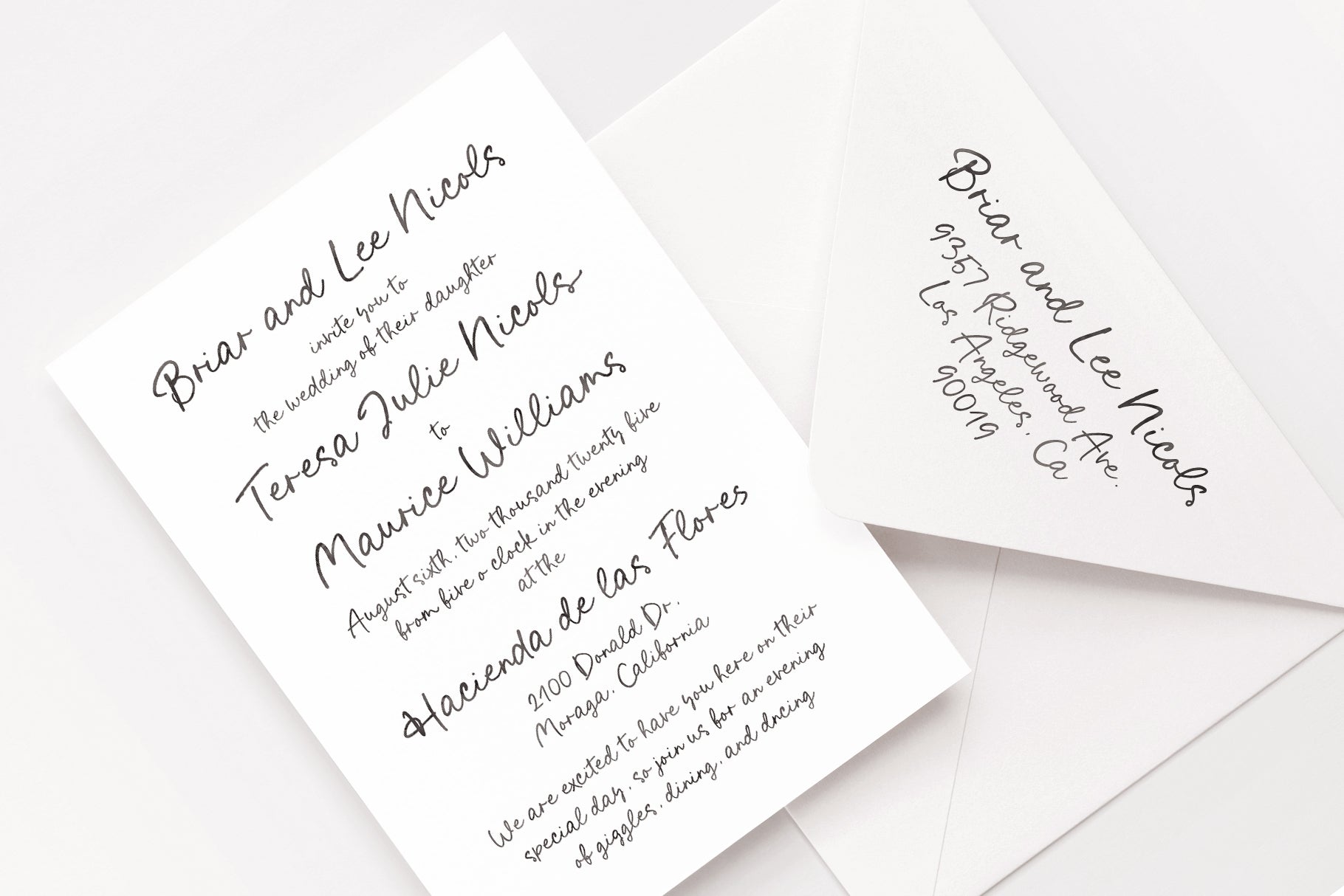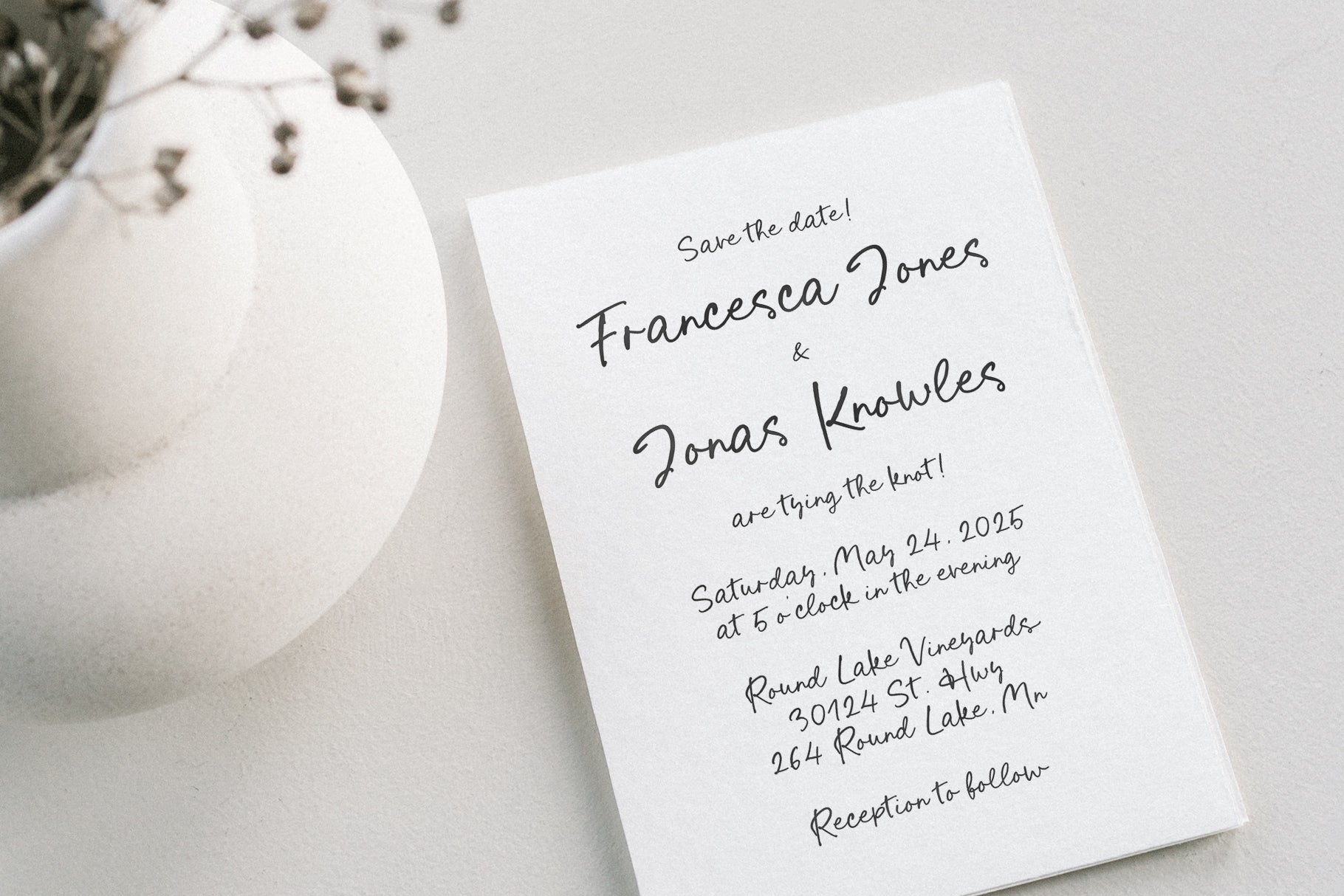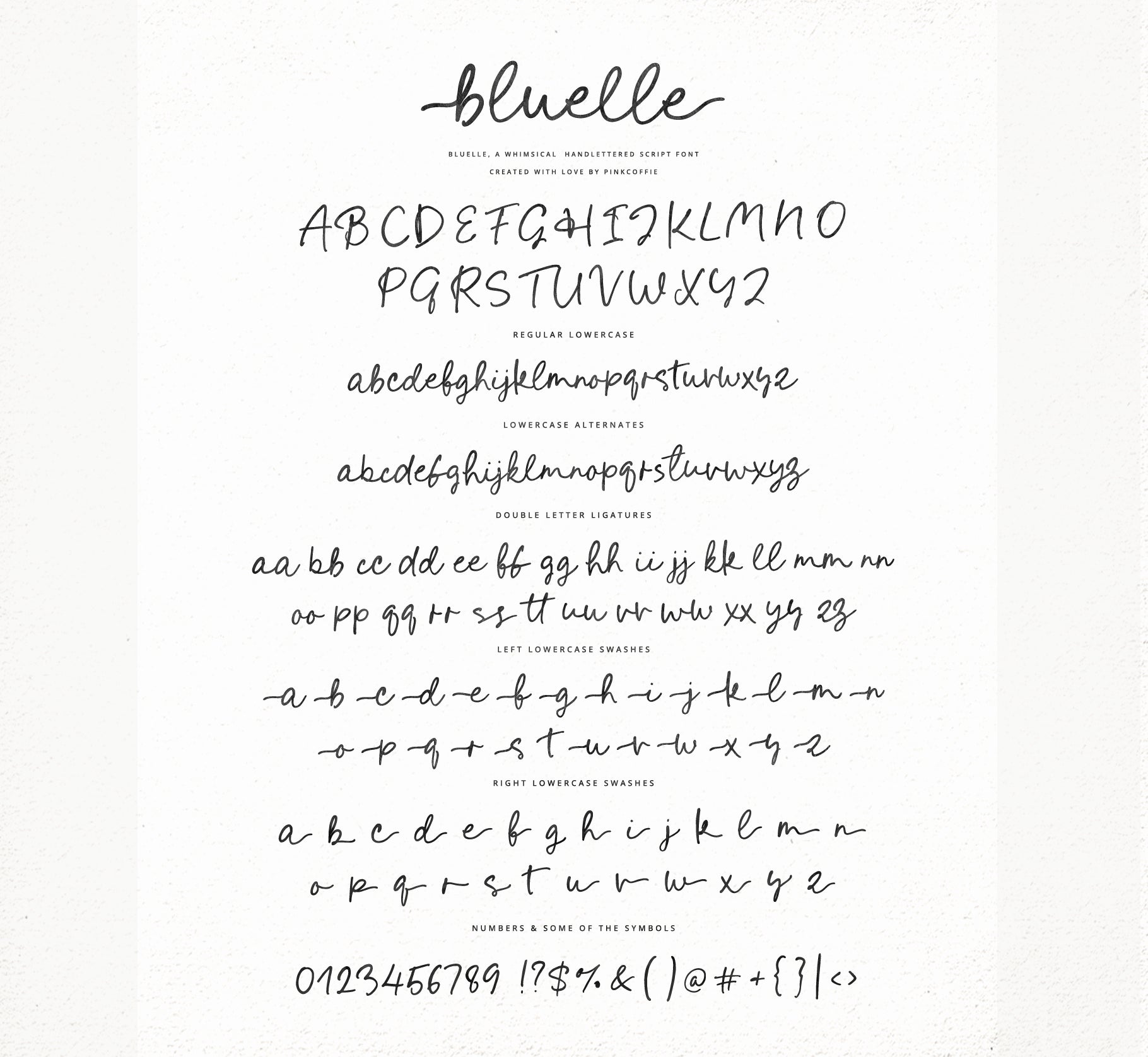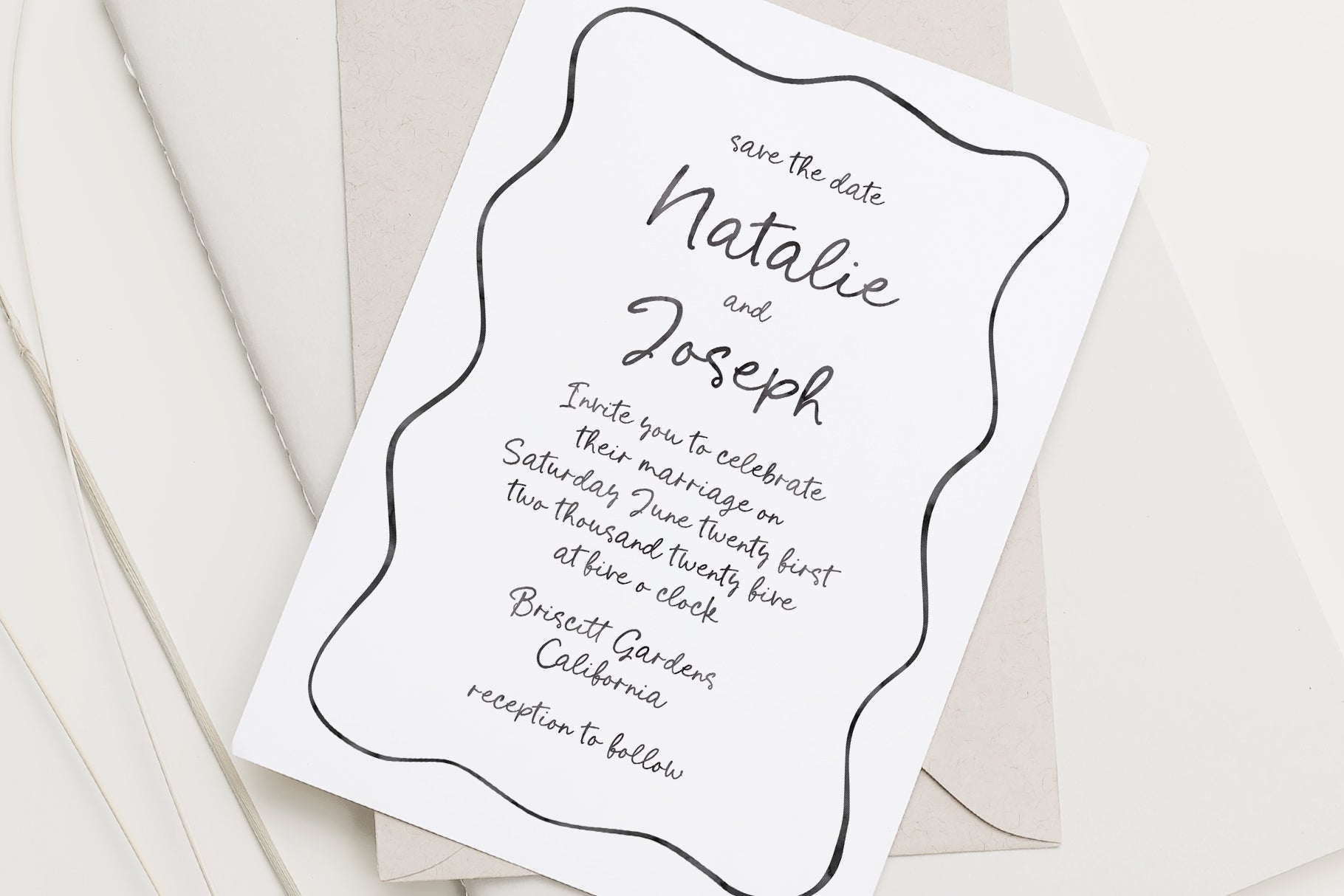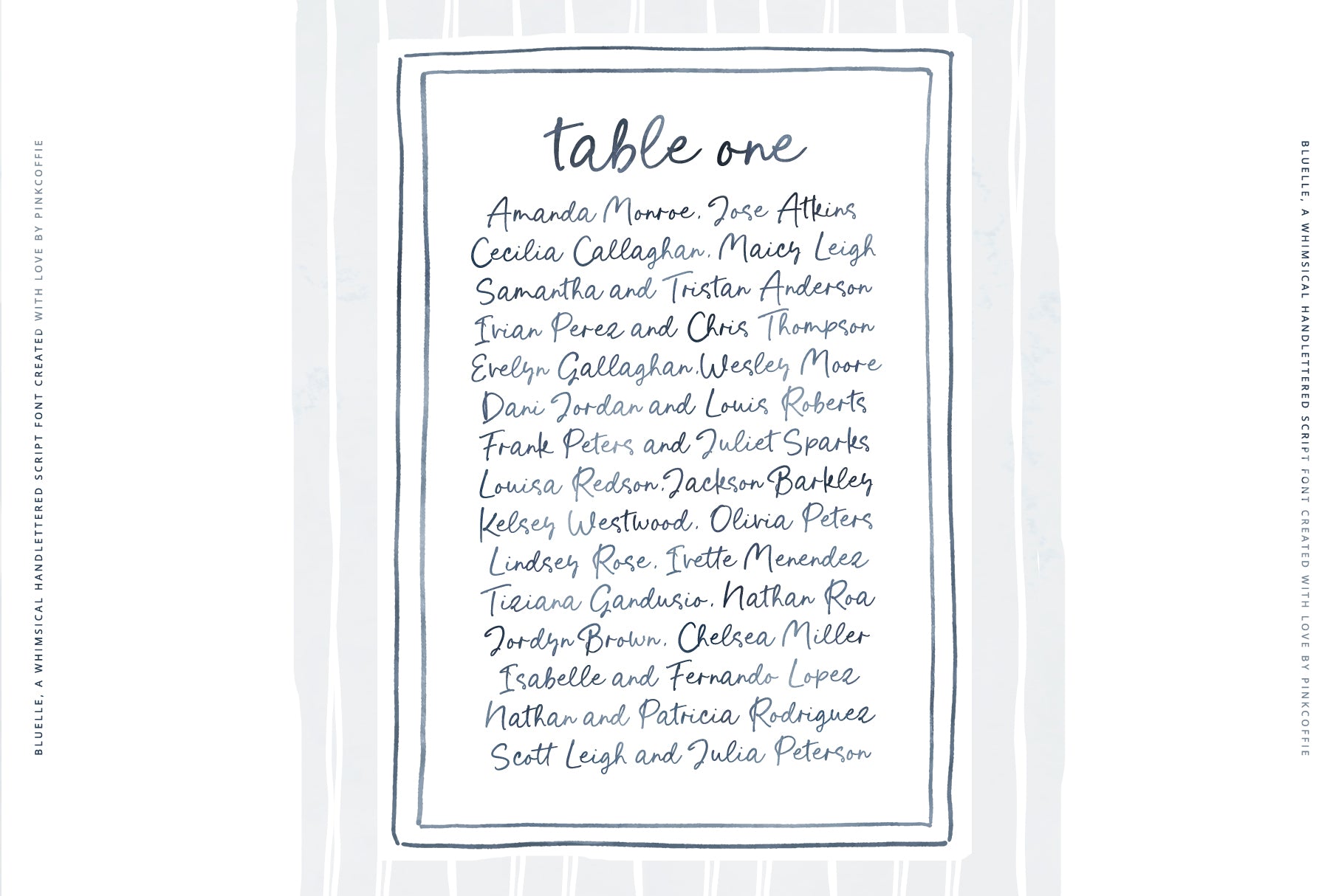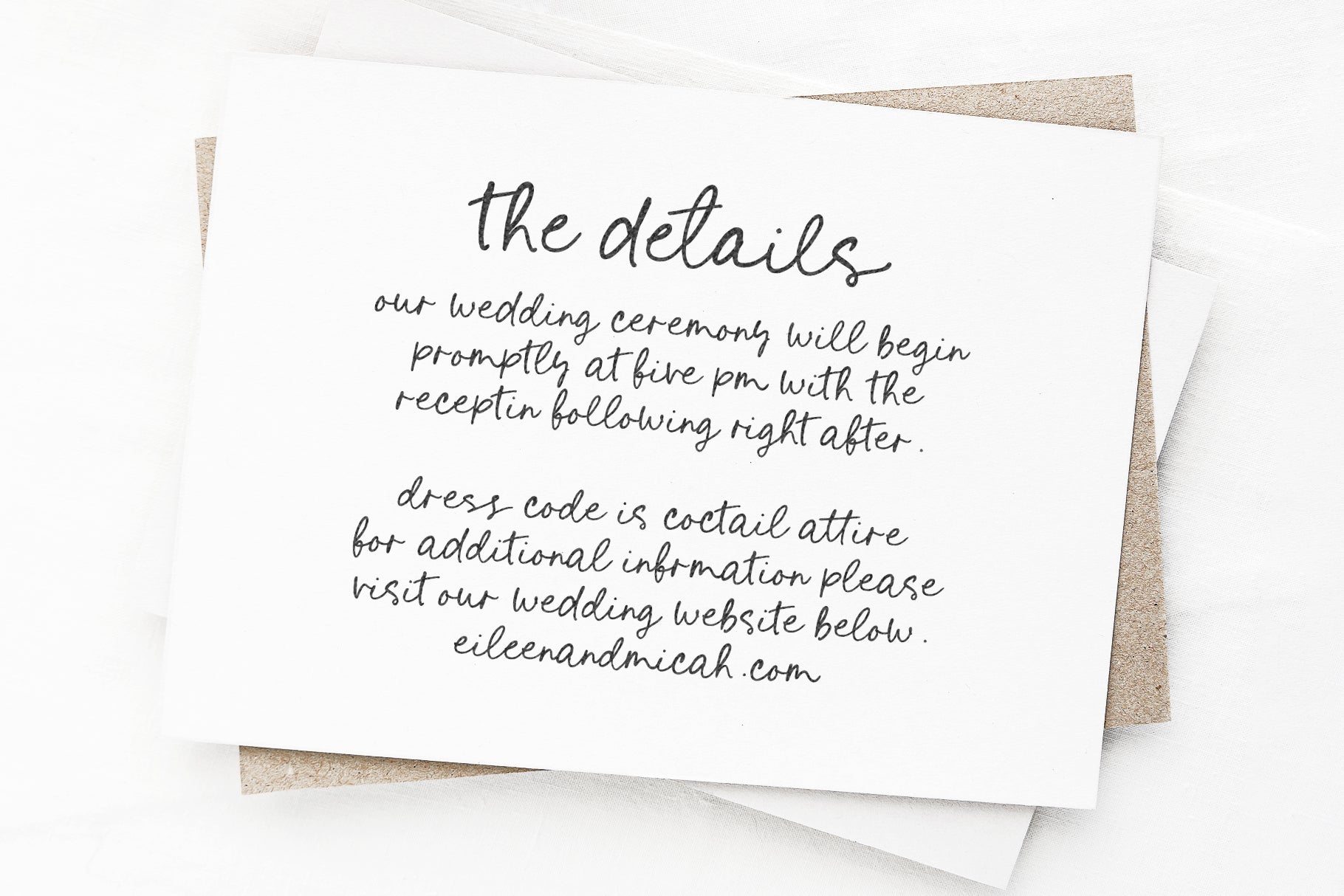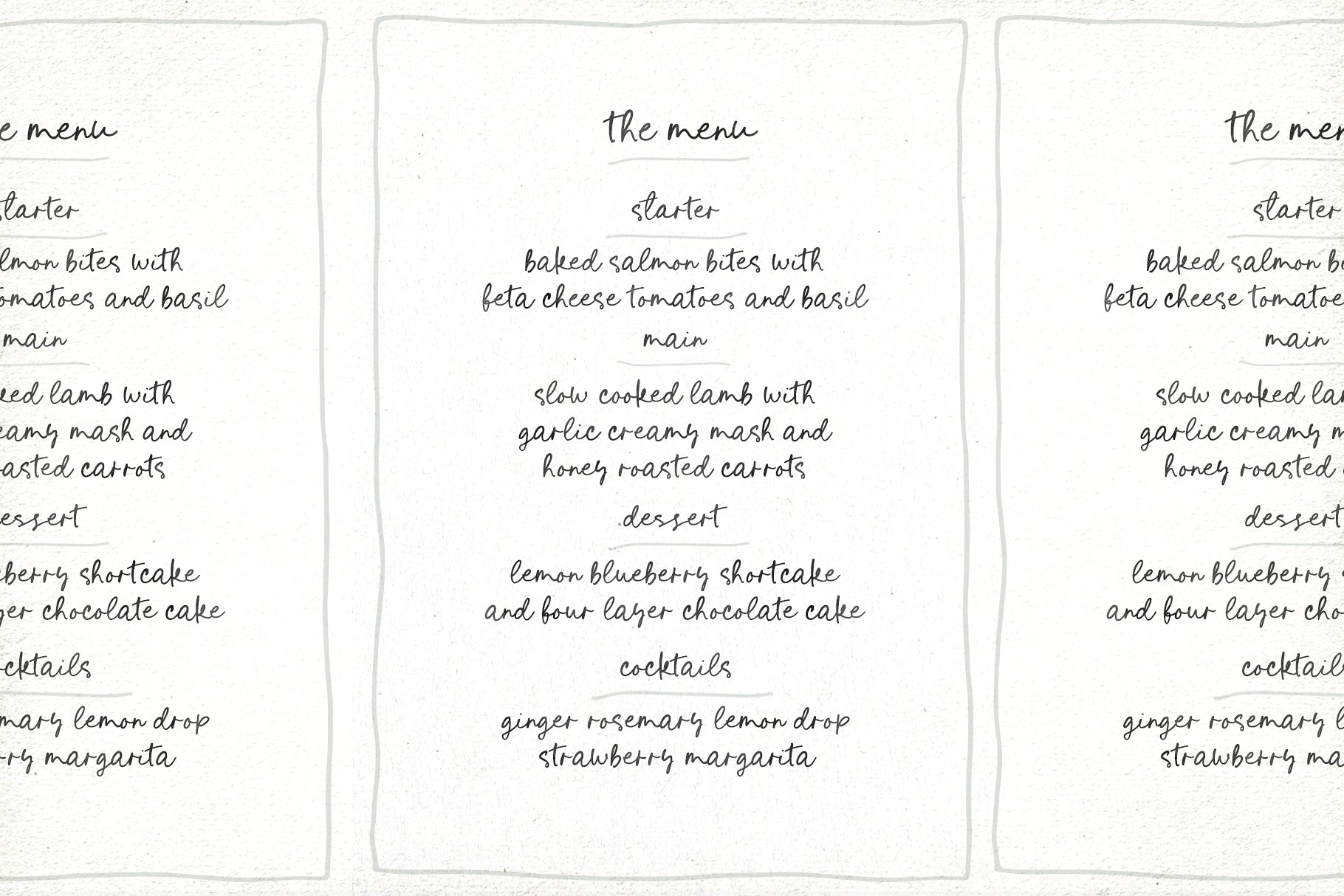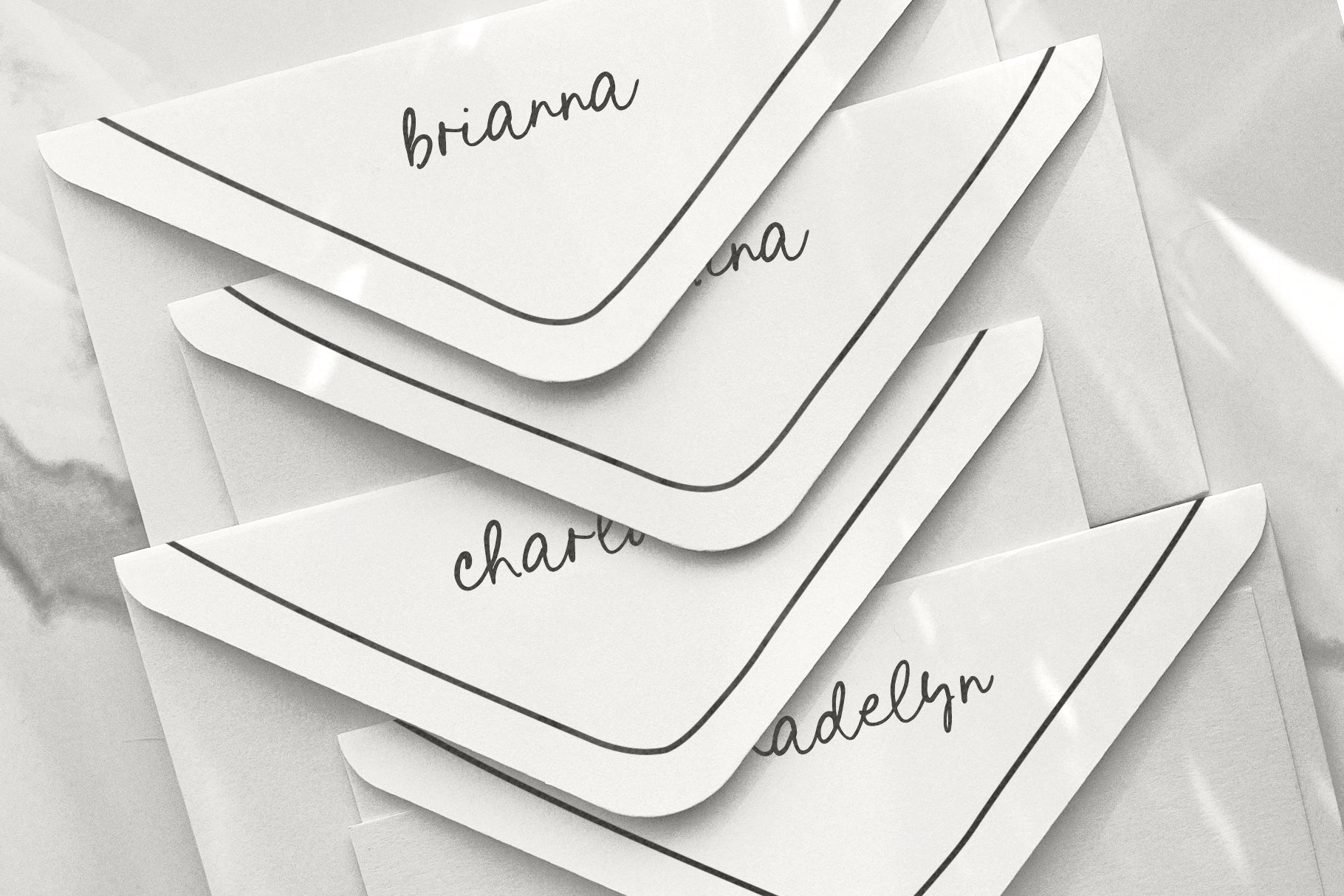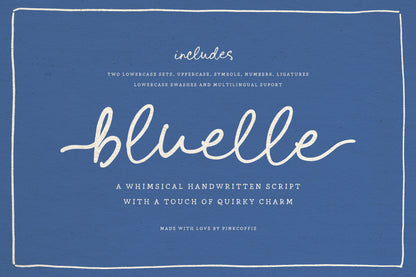
Say hello to Bluelle, a whimsical handwritten wedding script font with loads of hand-drawn character, and a touch of quirky chic. xx
This gorgeous handlettered script font is perfect for whimsical wedding invitations, bespoke stationery, quirky greeting cards, trendy art prints, logos, branding, social media graphics, websites, printables, planners, product packaging, and much much more!
- Bluelle - the script font containing all uppercase, lowercase alternates, symbols, numerals, multilingual support, and OpenType features such as ligatures, and lowercase swashes.